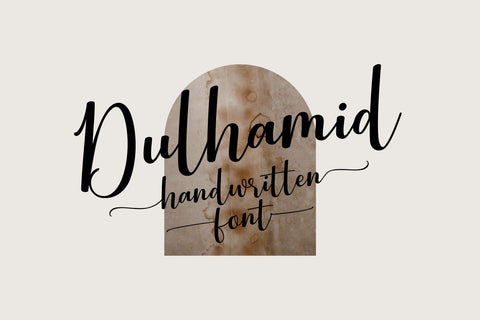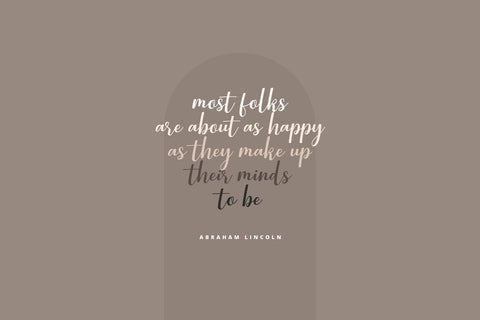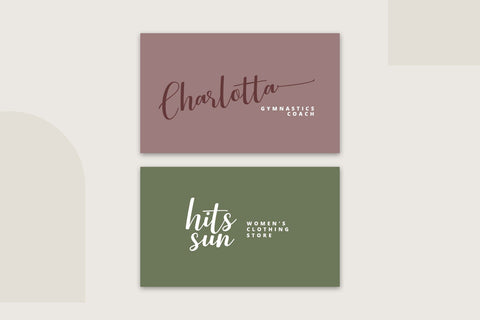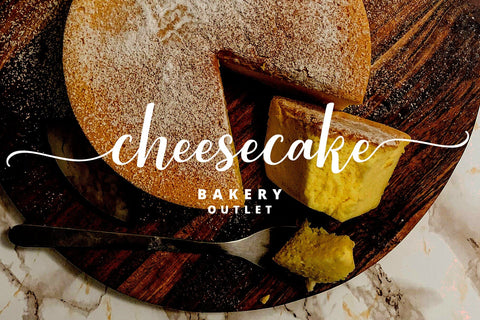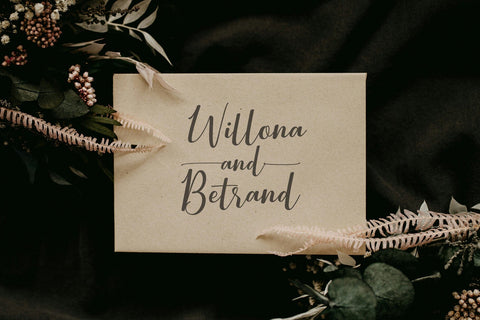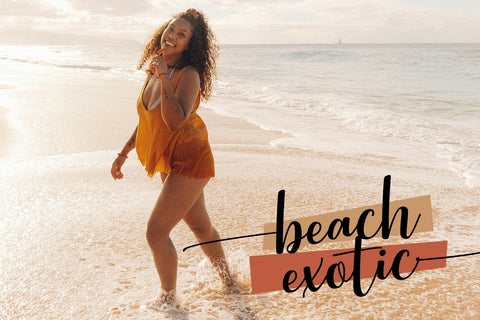
Dulhamid Handwritten Font
Dulhamid is a new fun and unique new handwritten script font. This font adopts a natural, cute, firm, and trendy style. Very suitable to meet your various design needs that are trending now!
With a style like this, this font will be suitable in use for logo's, branding projects, homeware designs, product packaging, mugs, quotes, posters, shopping bags, logo's, t-shirts, book covers, name card, invitation cards, greeting cards, and all your other lovely projects.